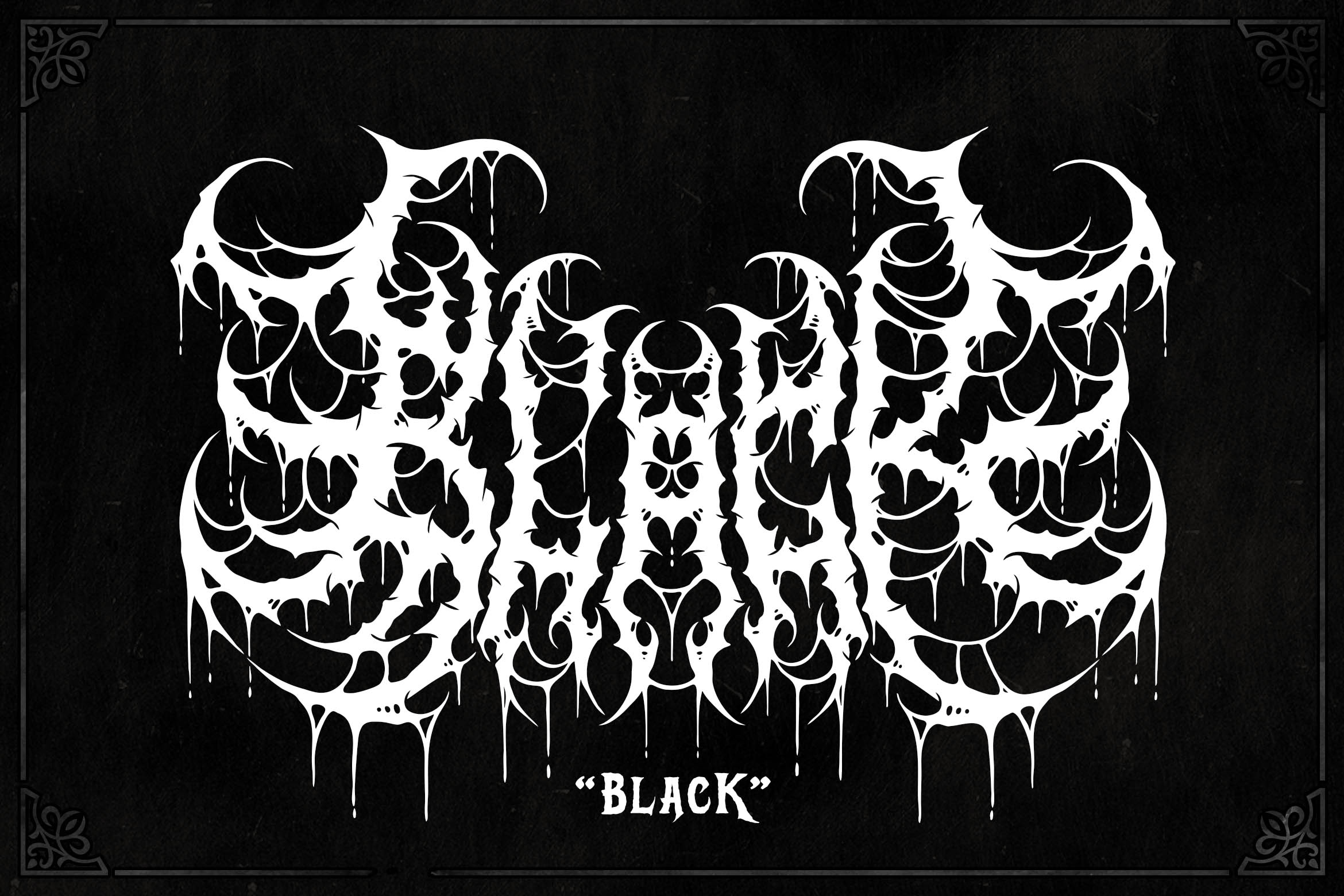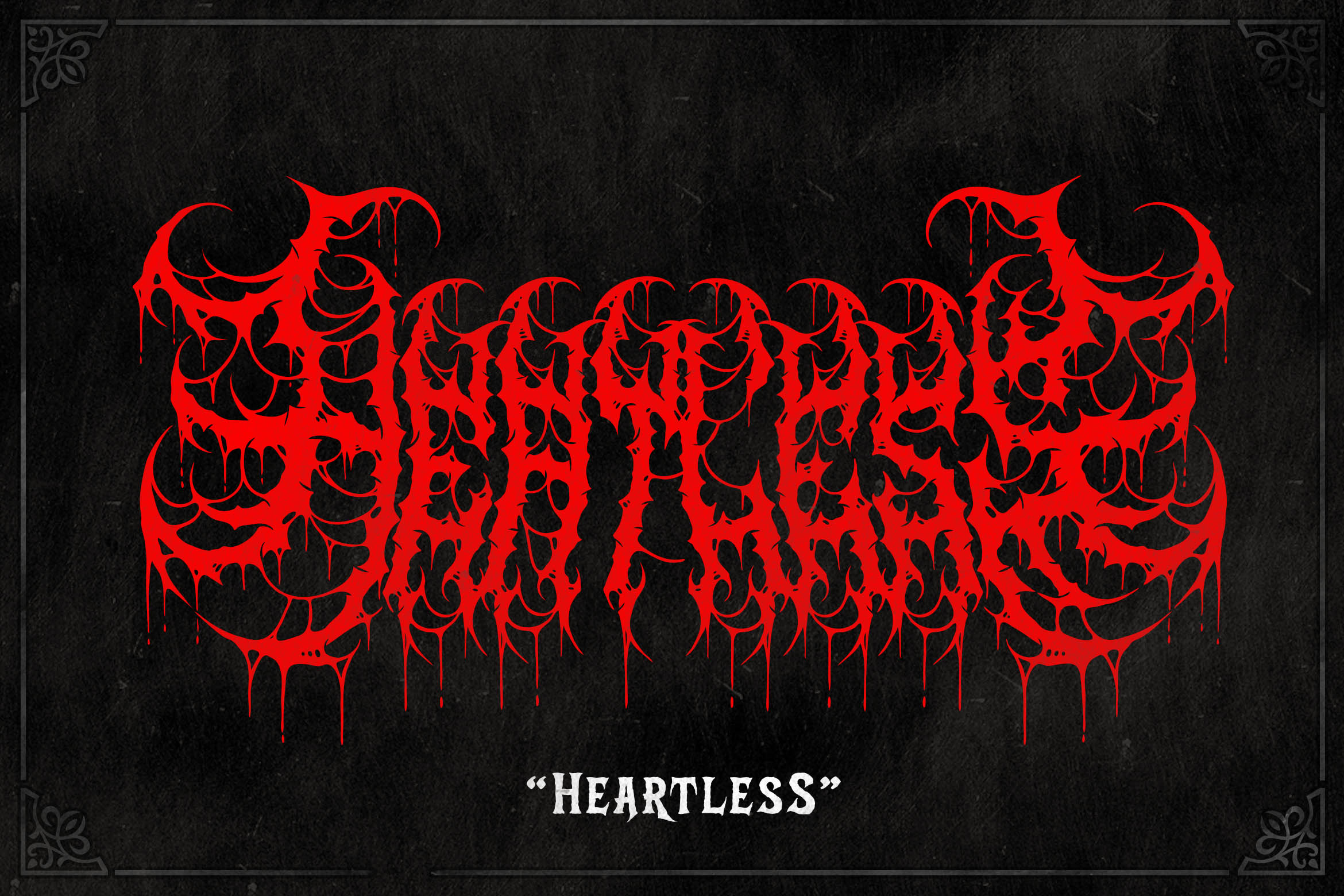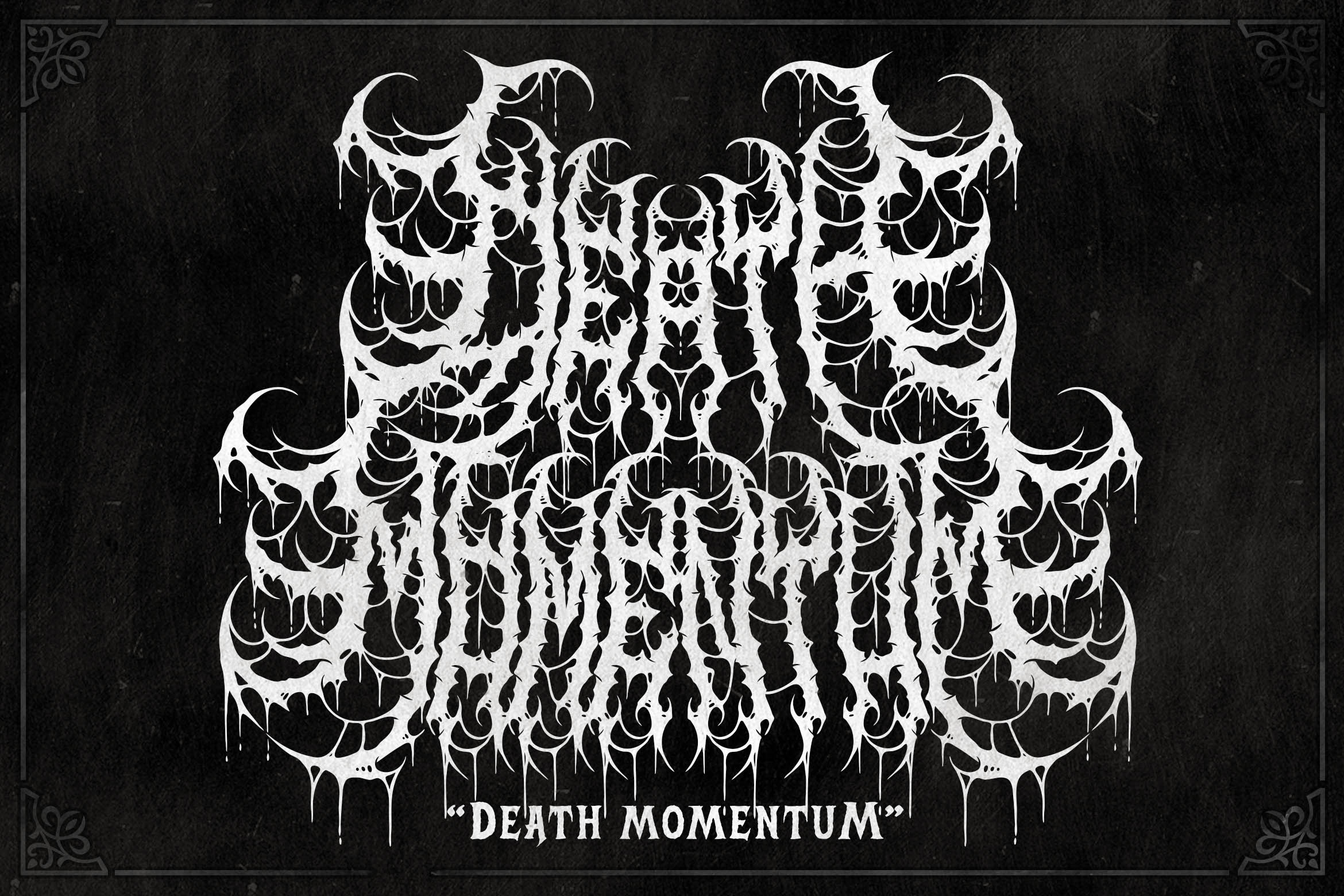
Sadness Black Metal Font
Introducing BMF Sadness, a meticulously crafted black metal font .” Designed for versatility and ease of use, BMF Sadness is perfect for creating striking logos, band merchandise, album covers, posters, and more. This user-friendly typeface allows for easy customization, enabling you to fine-tune your text effortlessly to achieve the precise look you desire.
Unlock the full potential of your creative projects with BMF Sadness bold and unique aesthetic. Whether you’re designing for a metal band, crafting eye-catching merchandise, or creating captivating promotional material, BMF Sadness delivers the edge you need to stand out. Don’t miss the chance to elevate your work—get BMF Sadness today and make a lasting impression!